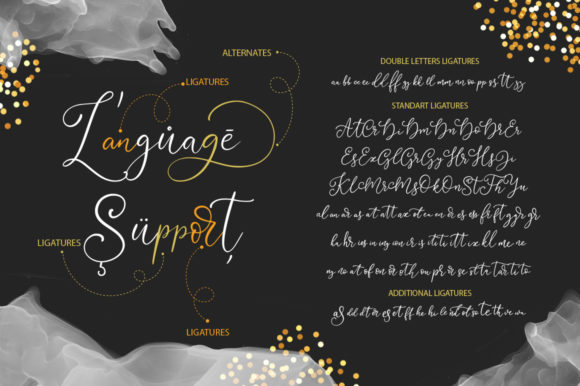
Miracles Duo Font
db-ku.com - Script & Handwritten -- The Miracles is a beautiful font duo. It includes an elegant script and sans serif font. It was created in order to repeat the peculiarities of hand-writing where each letter is special and where combinations of letters are unique.